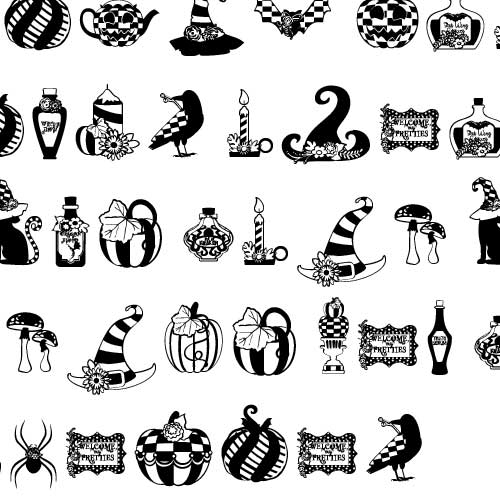
DB Charmingly Chic - Halloween - DB
This fun doodlebat font features 26 chic Halloween inspired designs. Perfect for cards, crafts, gifts, planner stickers, classrooms, scrapbook pages and more!